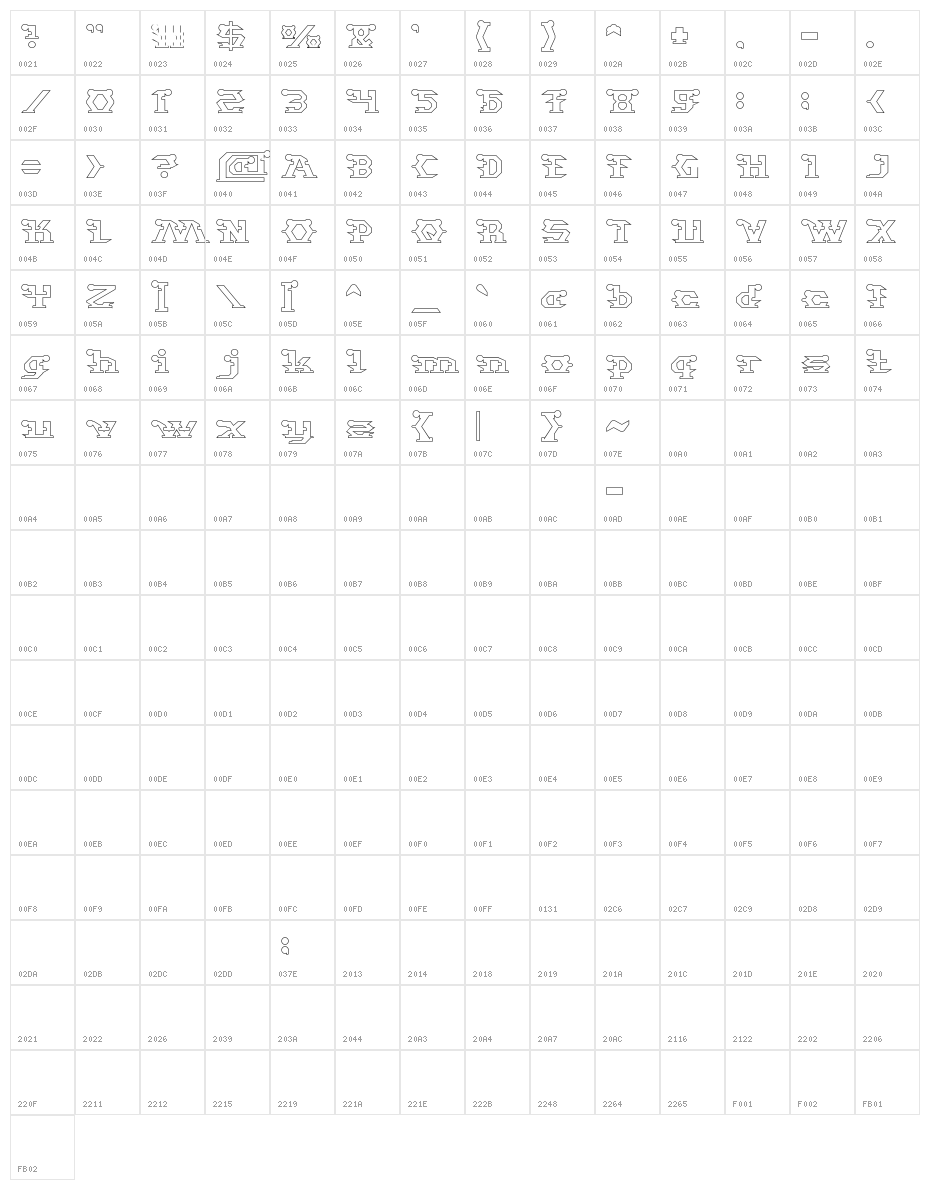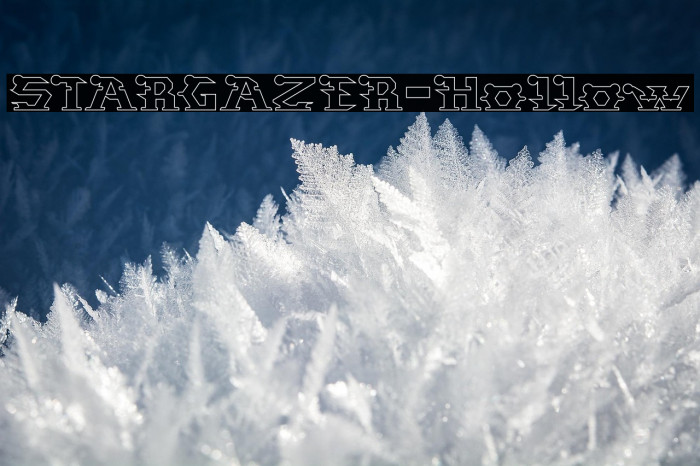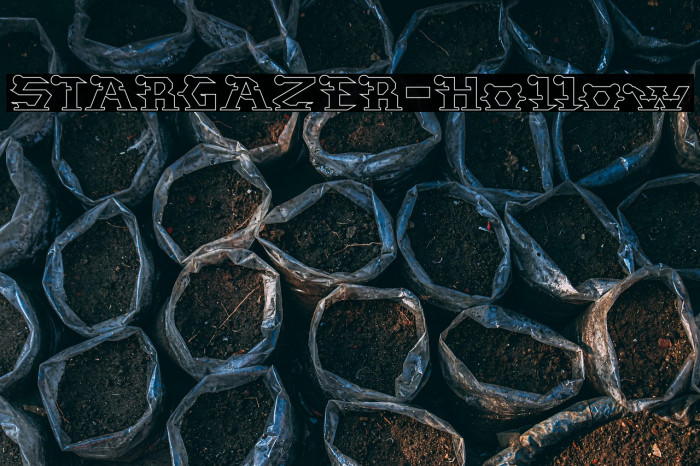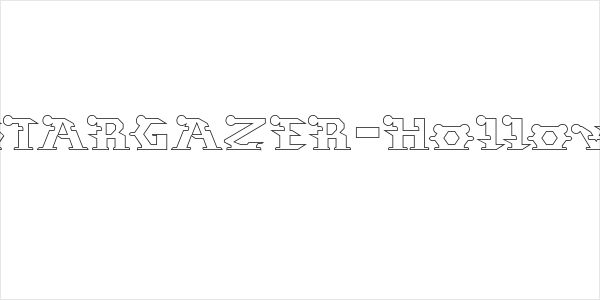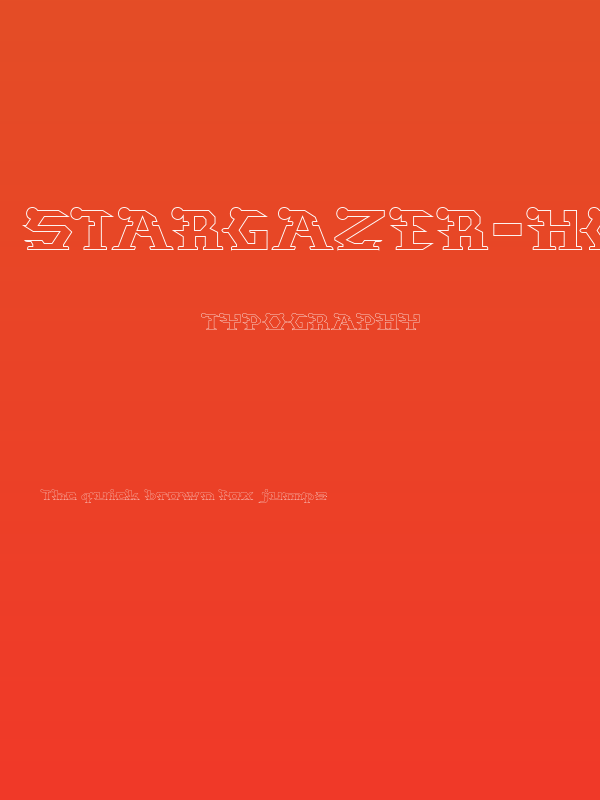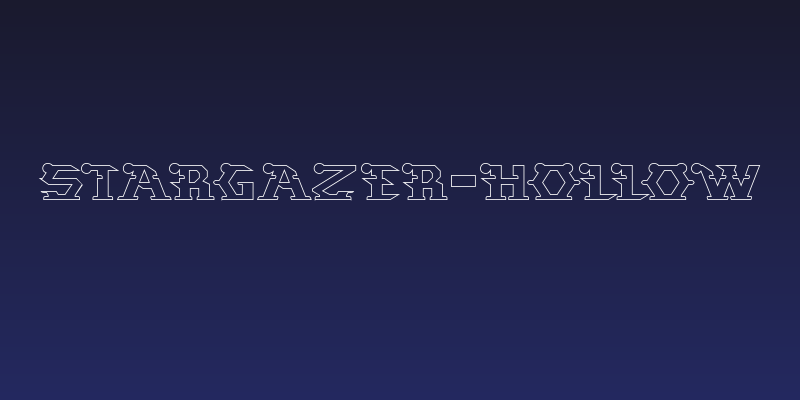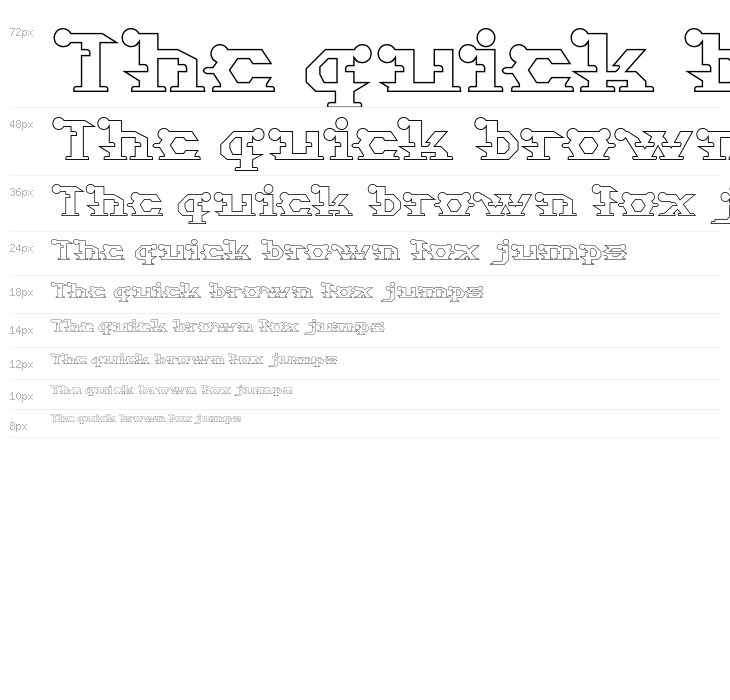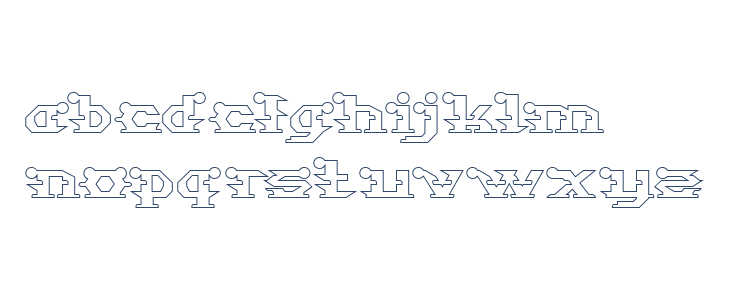
STARGAZER-Hollow Font
STARGAZER-Hollow Description
This font features a unique hollow design with a futuristic and geometric style. Each character is outlined with a consistent stroke width, creating a bold and striking appearance. The angular and sharp edges give it a modern and edgy feel, while the hollow interior adds a sense of lightness and space. The uppercase and lowercase letters maintain a consistent style, with the same geometric patterns applied throughout. Numbers and special characters are designed to match the overall aesthetic, ensuring a cohesive look across all text elements.